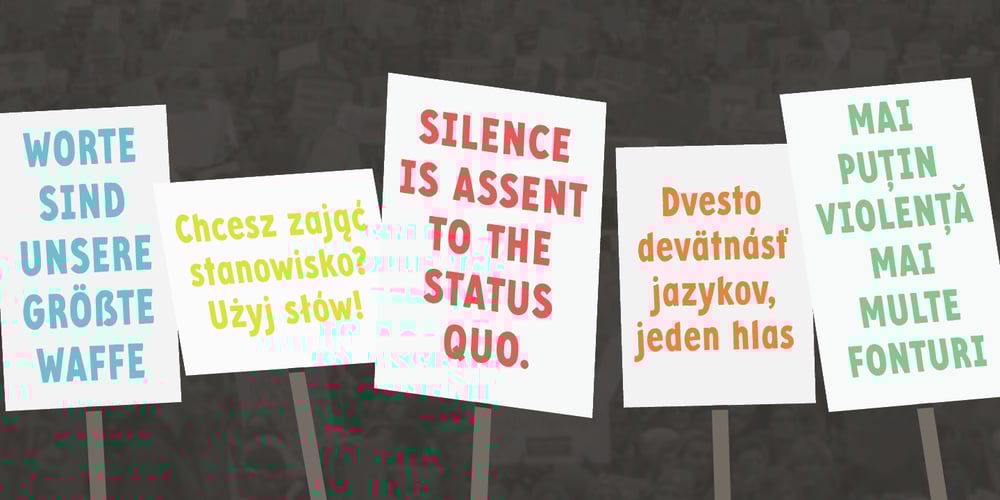
Protest Font Family was designed by Brandon Buerkle and published by Society of Fonts. Protest contains 1 styles and family package options. Protest is inspired by protest posters and the power of the people! Each glyph is written by hand with a Sharpie® Magnum marker on big sheets of paper. It is designed to fit more into the poster and still be legible for the media from a block away. It’s bold, slightly condensed, and neatly drawn with love and conviction, with the warm imperfection that comes from being hand drawn. Protest consists of over 1,430 glyphs. This includes 300 alphanumeric glyphs with 3 contextual alternates each, 20 stylistic alternate glyphs, and 20 protest themed dingbats. Contextual alternates will rotate through automatically when OpenType features are enabled, giving it more human irregularity. Protest supports 219 latin-based languages, using Underware’s Latin Plus glyph set.